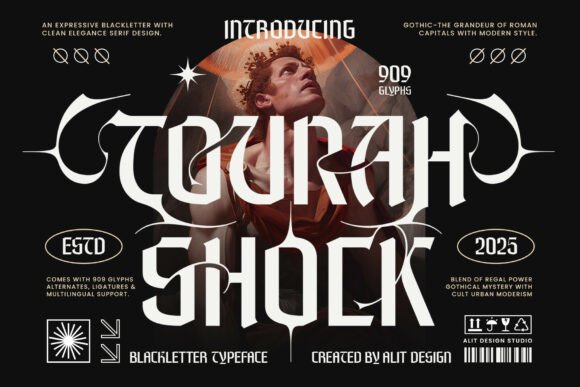
Tourah Shock Typeface
For designers seeking to make a statement, Tourah Shock is more than just a typeface — it's an artistic tool that bridges the gap between historical depth and modern rebellion. Combining elements of blackletter tradition with elegant serif architecture and tribal artistry, Tourah Shock delivers a unique visual language suited for bold communication. Whether you're crafting album covers, fashion branding, or cinematic posters, this typeface offers a distinct edge that can elevate your work from ordinary to unforgettable.
Design Concept: A Fusion of Past and Future
The essence of Tourah Shock lies in its ability to merge seemingly contrasting styles into a cohesive whole. Its letterforms are inspired by Gothic Roman capitals, known for their dramatic flair and architectural presence. But rather than resting there, the design pushes forward by integrating urban cult symbolism and ceremonial tribal aesthetics, creating a typographic identity that feels both ancient and futuristic.
Each character features sharp terminals and high-contrast strokes, giving it a commanding presence on any medium. The ornamental extensions echo ritualistic motifs, while the alternates offer a touch of mysticism through flowing curves reminiscent of sigils and sacred symbols. This duality makes Tourah Shock ideal for projects where emotional storytelling and strong visual impact are key.
Why Designers Should Care About Tourah Shock
In today’s competitive creative landscape, standing out is essential. Traditional fonts may lack the punch needed to capture attention, while overly stylized options can compromise readability. Tourah Shock balances these extremes, delivering a font that is both expressive and functional. It allows designers to convey intensity and sophistication without sacrificing clarity, making it a versatile asset across various industries.
Consider how this font might enhance a darkwave album cover or a luxury streetwear brand’s logo. Its structured defiance adds gravitas, helping your message resonate with audiences who appreciate bold, meaningful visuals. For those working in gaming or fantasy publishing, Tourah Shock provides a narrative-ready aesthetic that can bring fictional worlds to life with a sense of ceremony and intrigue.
Practical Applications for Real-World Projects
Tourah Shock isn’t just about looking good; it’s about enhancing the impact of your designs. Here’s how it can serve different use cases effectively:
- Album Covers and Music Branding: In genres like metal, electronic, darkwave, and hip hop, the right typography can set the tone. Tourah Shock’s gothic roots and tribal flourishes make it perfect for evoking mood and emotion in music-centric visuals. Its ornate yet readable structure ensures that titles stand out without overwhelming supporting content.
- Fashion and Editorial Design: High-end fashion brands often rely on typography to communicate exclusivity and artistry. With its blend of regal serifs and edgy embellishments, Tourah Shock can help create striking headlines or logos that speak to urban elegance and cultural depth. It works especially well in editorial spreads where visual hierarchy and thematic consistency are crucial.
- Game Titles and Fantasy Books: The fantasy genre thrives on immersive visuals. Tourah Shock brings a mythic quality to game titles and book covers, allowing them to feel epic and enigmatic. Its ornamental details can evoke a sense of adventure or mystery, aligning perfectly with the themes of many fantasy narratives.
- Cinematic Posters and Trailers: Film and television projects benefit from typography that commands attention. Tourah Shock’s cinematic weight and structured defiance make it a natural fit for posters, title sequences, and promotional materials that aim to stir curiosity and anticipation.
- Ritualistic Branding and Tattoos: For niche markets such as tattoo studios or gothic subcultures, Tourah Shock offers a deeply symbolic character. Its tribal and ceremonial influences can lend authenticity to branding that relies on mystique and tradition.
Who Can Benefit Most?
If your work requires a strong emotional core and visual dominance, Tourah Shock could be a valuable addition to your toolkit. Professionals in the following fields may find it particularly useful:
- Graphic Designers: Especially those specializing in branding, packaging, or entertainment media, where a distinctive typeface can differentiate a project.
- Musicians and Labels: Artists aiming to craft a dark, edgy, or mystical image will appreciate the storytelling potential embedded in Tourah Shock’s design.
- Book Publishers and Game Developers: The font’s ability to suggest grandeur and otherworldliness is invaluable when designing titles for fantasy, horror, or sci-fi projects.
- Marketing Agencies: Campaigns targeting mature, culturally aware audiences can leverage Tourah Shock to create visually compelling messages that align with specific brand identities.
Before committing to Tourah Shock for every project, evaluate whether its bold character aligns with your goals. When used thoughtfully, however, it can become a signature element of your design language, one that speaks directly to the soul of your audience. So step into the world of Tourah Shock and discover what happens when tradition meets rebellion in every letterform.